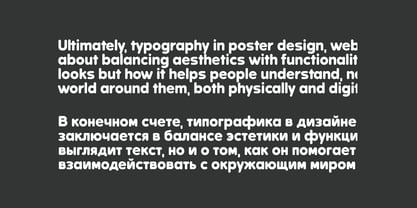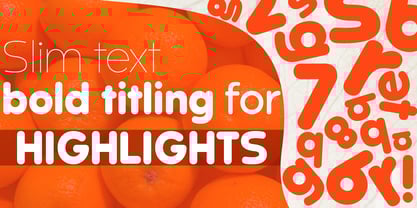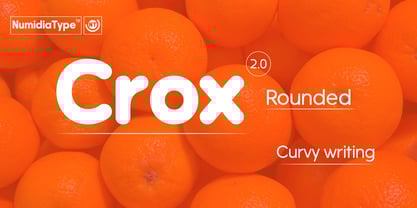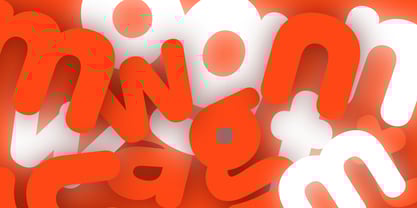
Crox Rounded
by NumidiaType
The Crox Rounded Font Family was designed by Yassine Abdi and published by NumidiaType. Crox Rounded contains 20 styles and family package options. More about this family
Crox™ Rounded 2.0 is a modern, professionally engineered typeface that combines the geometric clarity of the Crox™ family with the warm, approachable softness of rounded terminals. Built from the same foundation of circles, squares, and triangles, Crox™ Rounded 2.0 brings together precision, creativity, and a friendly human touch, making it ideal for brands and interfaces seeking both professionalism and warmth. Completely redesigned in its second major release, this rounded edition features 10 weights and 20 styles including Oblique options and integrates more than 25 advanced OpenType features such as refined fractions supporting both numerals and letters. Nearly every glyph has been recrafted with smooth contours that reduce visual tension, enhance legibility at small sizes, and improve readability across screens. The typeface also delivers optimized kerning scripts, lighter file sizes, extensive Western language support, and scripting for derived units, ensuring excellent technical performance in modern workflows. Its soft geometric structure enhances character rhythm and makes text feel more inviting, while maintaining the structural balance Crox™ is known for. Perfect for UI/UX, branding, advertising, packaging, and product design, Crox™ Rounded 2.0 blends the precision of a professional sans serif with the emotional warmth of rounded typography making it adaptable, trustworthy, and ready for any contemporary design setting.
Designers: Yassine Abdi
Current Foundry: NumidiaType